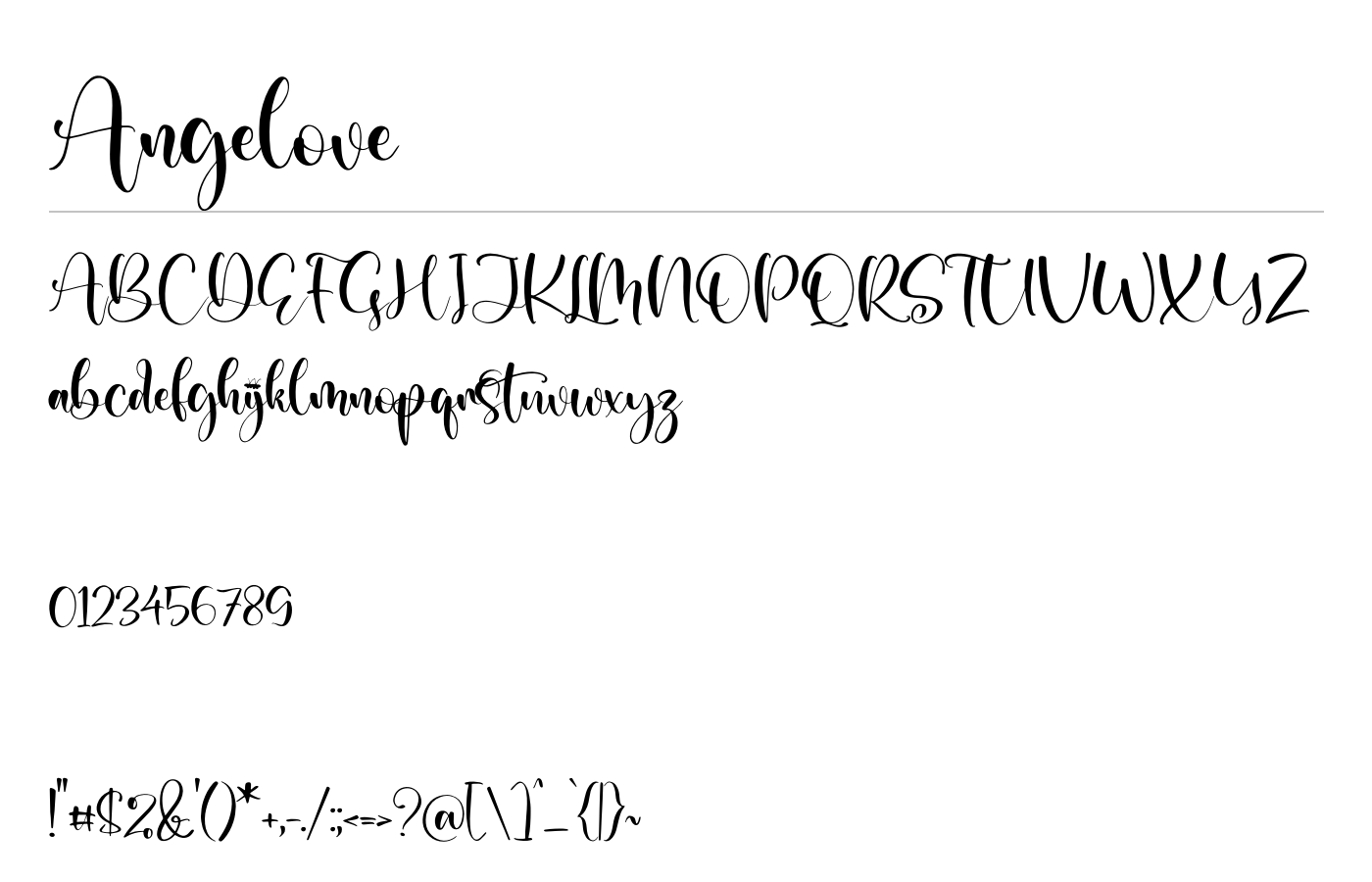
Angelove is a delicate and elegant script font with a playful yet refined personality. Its flowing strokes and graceful curves make it perfect for invitations, branding, and headlines where a romantic or handcrafted feel is desired. This font’s light weight and airy style lend a sense of charm and sophistication to any design.
Angelove Font
About Angelove Font
| Font family | Angelove Font |
| Designer | Nanang Jamaludin |